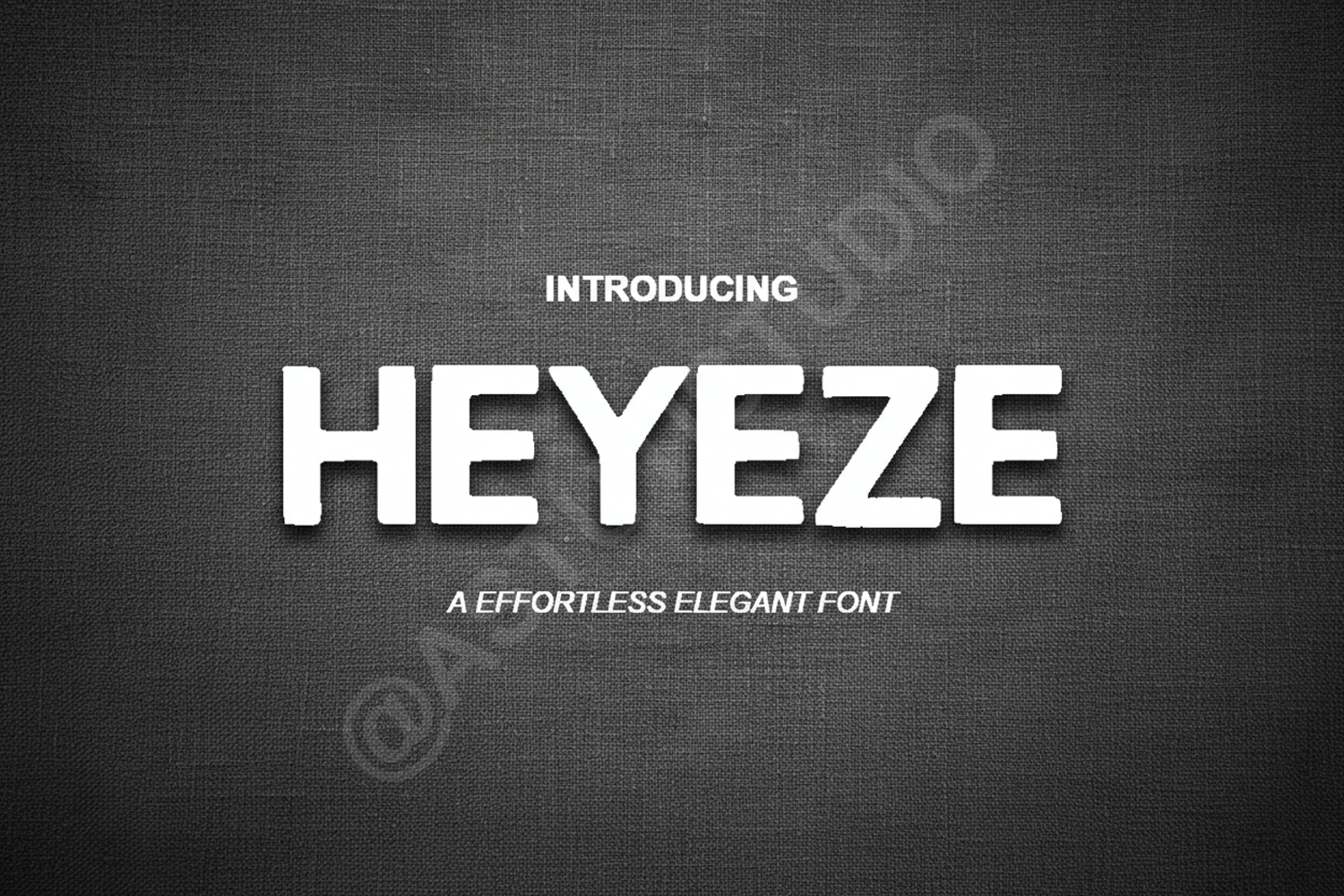
Heyeze | Modern Sophisticated Sans Serif
Heyeze
Elevate your creative projects with Heyeze, a premium sans serif font that blends modern sophistication with timeless elegance. Designed with clean lines and balanced proportions, Heyeze offers a high-end aesthetic that captures attention while maintaining exceptional readability across all platforms. Whether you are aiming for a minimalist look or a bold statement, this font provides the versatility needed for professional results.
Heyeze is a versatile powerhouse perfect for a wide range of professional design applications:
- Branding and Visual Identity: Create memorable logos and cohesive brand systems.
- Editorial Design: Ideal for magazine layouts, headers, and body text.
- Wedding Invitations: Add a touch of modern luxury to stationery and event decor.
- Social Media Graphics: Stand out on digital platforms with clean, impactful typography.
- Web Design: Enhance user experience with a font optimized for readability on screens.